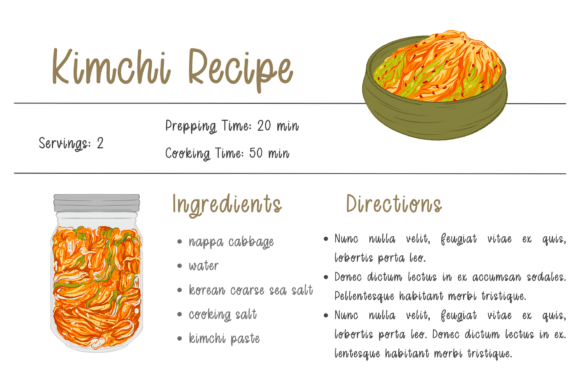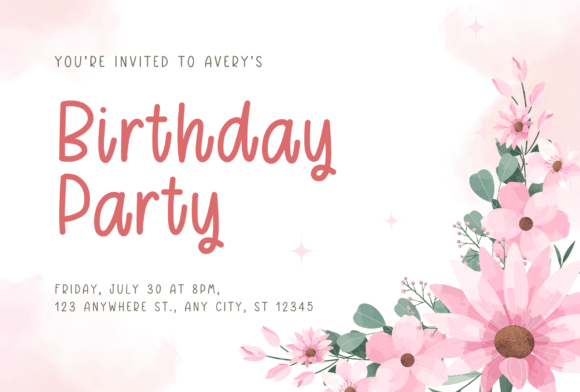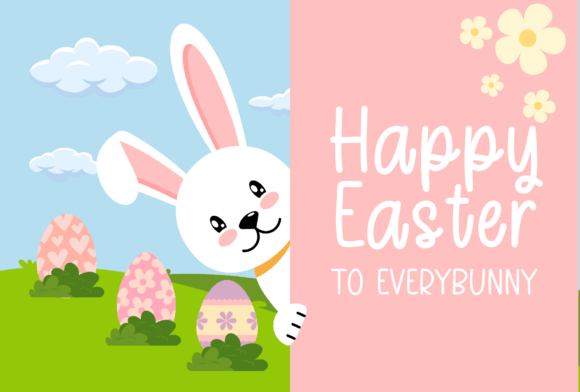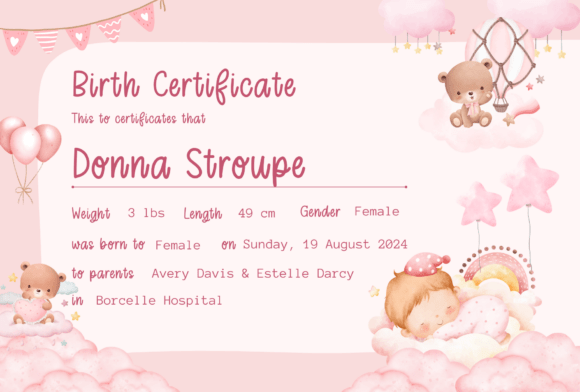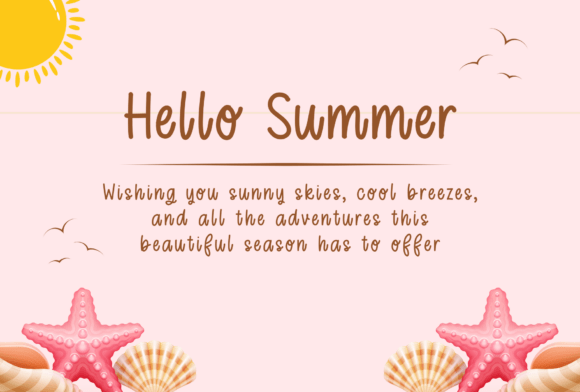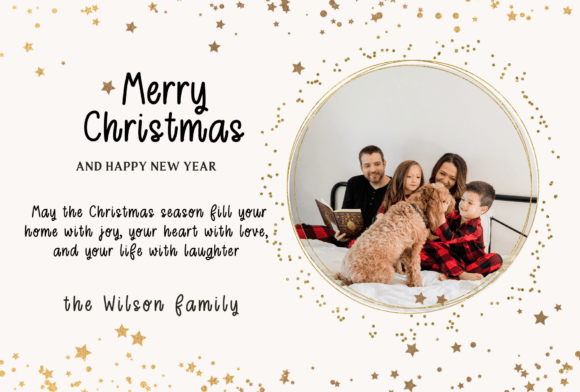
Introducing the Happy Moment Font: A Charming Handwriting Typeface
Are you looking for a font that can add a touch of warmth and personality to your designs? Look no further than the Happy Moment font, a delightful handwriting typeface that is sure to capture the hearts of designers and crafters alike. With its smooth, flowing strokes and casual elegance, this font is perfect for a wide range of creative projects, from greeting cards and journals to branding and more.
The Characteristics of Happy Moment Font
The Happy Moment handwriting font is a charming and effortlessly playful typeface that is designed to evoke the warmth and authenticity of handwritten notes. Its smooth, flowing strokes have a casual elegance that makes it perfect for designs that require a personal touch. The font features:
- Smooth, flowing strokes that give it a natural, handwritten feel
- Casual elegance that makes it perfect for a wide range of creative projects
- A warm and inviting tone that is sure to capture the hearts of your audience
The Happy Moment font is perfect for designers and crafters who are looking to add a touch of personality to their projects. Whether you’re creating:
- Greeting cards for special occasions
- Journals and planners that require a personal touch
- Branding materials that need to stand out from the crowd
- Creative projects that require a unique and eye-catching font
The Happy Moment font is the perfect choice. Its versatility and charm make it an excellent addition to any design project.
Why Choose Happy Moment Font?
So why choose the Happy Moment font for your next design project? Here are just a few reasons:
- Unique and eye-catching: The Happy Moment font is a unique and eye-catching typeface that is sure to grab the attention of your audience.
- Personal touch: The font’s smooth, flowing strokes give it a natural, handwritten feel that adds a personal touch to any design.
- Versatile: The Happy Moment font is versatile and can be used for a wide range of creative projects, from greeting cards to branding materials.
- Easy to read: The font is easy to read, making it perfect for designs that require a clear and concise message.
Tips for Using Happy Moment Font
Here are a few tips for using the Happy Moment font in your next design project:
- Pair it with bold fonts: Pair the Happy Moment font with bold fonts to create a striking contrast that grabs attention.
- Use it for headings: Use the Happy Moment font for headings and titles to add a touch of personality to your design.
- Experiment with colors: Experiment with different colors to find the perfect combination that complements the font.
The Happy Moment font is a charming and effortlessly playful typeface that is sure to capture the hearts of designers and crafters alike. With its smooth, flowing strokes and casual elegance, it’s perfect for a wide range of creative projects. Whether you’re creating greeting cards, journals, branding materials, or more, the Happy Moment font is the perfect choice. So why not give it a try and add a touch of warmth and personality to your designs?